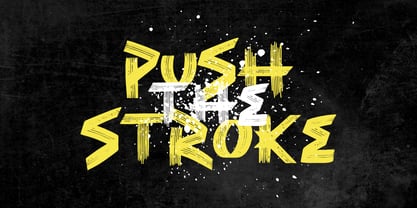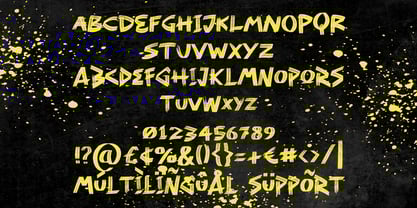
Boost Stroke
by Shanaf
The Boost Stroke Font Family was designed by Yesie Erma Yunita and published by Shanaf. Boost Stroke contains 1 styles. More about this family
Boost Stroke Brush Font is a dynamic and expressive typeface designed to encapsulate the raw energy and vigor of sports and action themes. With a distinctly rugged brush texture, each character exudes strength and motion, making it ideal for projects that demand attention and power. The font employs bold, sharp lines intertwined with spontaneous brush strokes, providing an authentic, handcrafted appearance. White splatter elements against a contrasting dark background amplify the intensity, creating an aesthetic that is both striking and aggressive. This font’s versatility is highlighted through variations in bold uppercase and stylistic alternates, offering enhanced creativity and flexibility for designers.
Perfectly suited for dynamic branding projects, Boost Stroke makes a bold statement on logos, posters, and promotional materials that target sports events, music concerts, or youth-focused marketing. Its strong, textured style ensures readability while simultaneously conveying high energy, excitement, and ruggedness. Furthermore, this font is adaptable for diverse applications, including invitation cards, packaging, film titles, magazines, book covers, and even custom stickers. Incorporating multilingual support and a comprehensive set of symbols and numerals, Boost Stroke elevates designs, ensuring your projects stand out with confidence and intensity.
Designers: Yesie Erma Yunita
Foundry: Shanaf